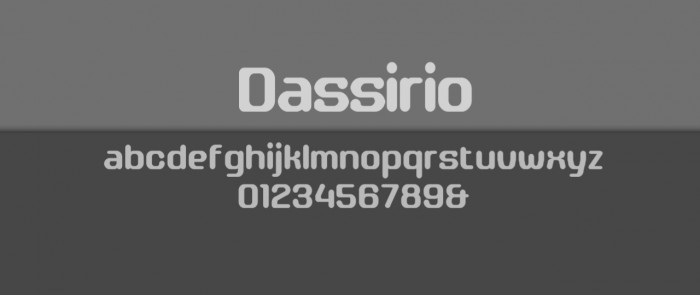
Interesting rounded letters here. Some of them could be improved a bit using a few little tricks, IMHO.
elmoyenique never afraid to help someone out!! Great looking start so far, indeed it has some rough spots that require a little bit of polishing, but you're on to something for sure!
Dassirioby Thematvey (Matvey Kozlov)